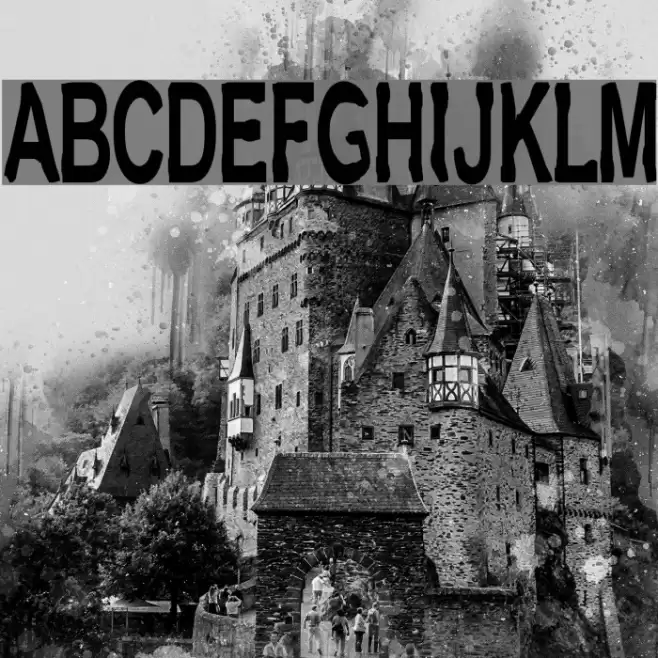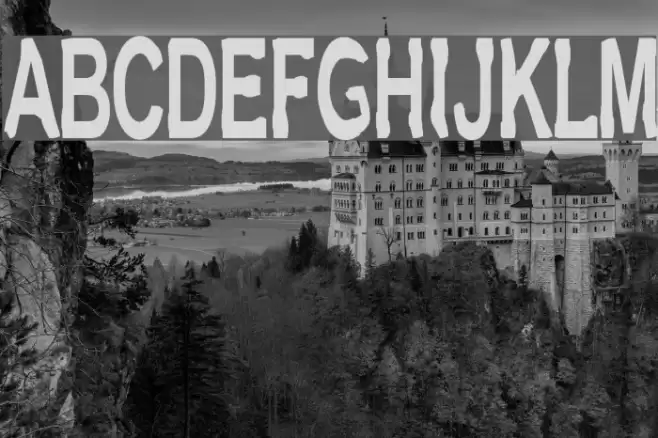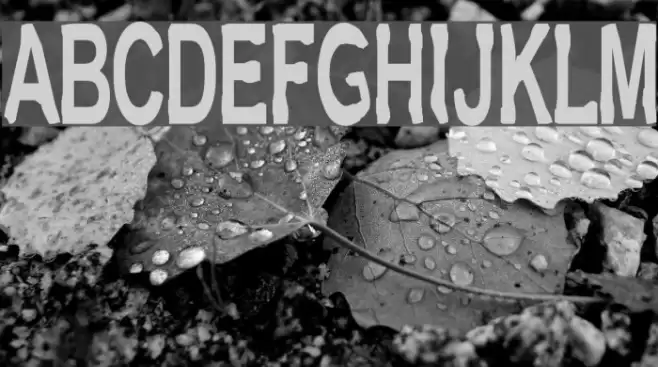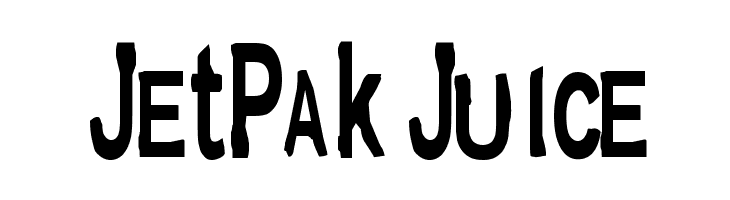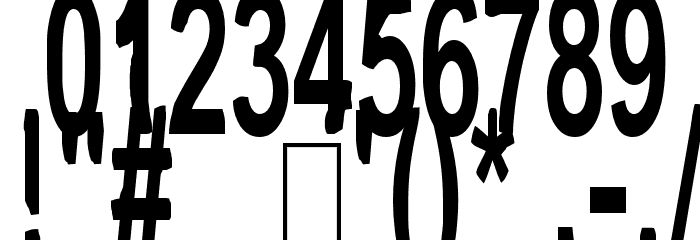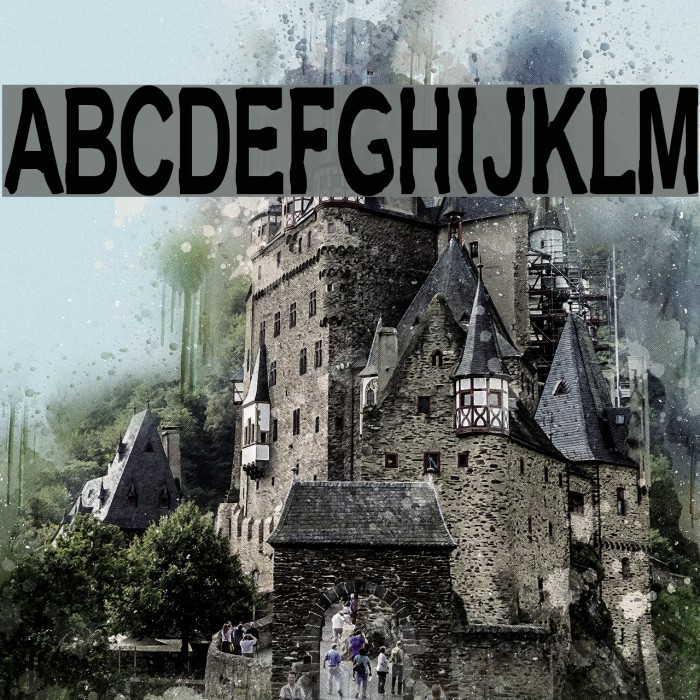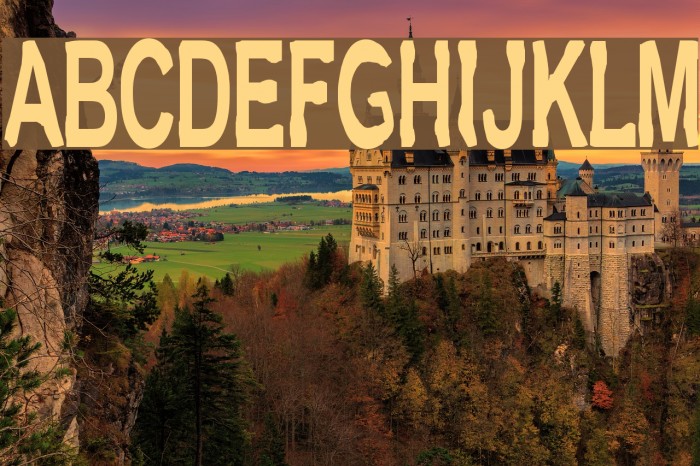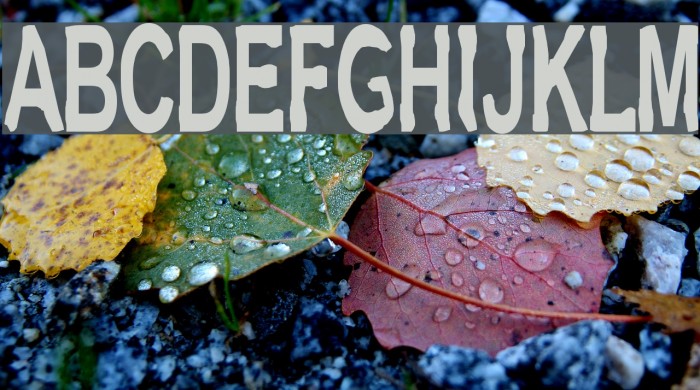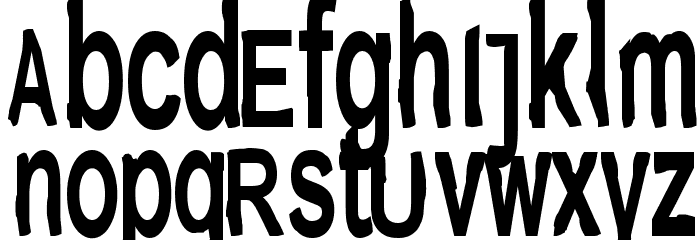
JetPak Juice Font
JetPak Juice Description
This font features a bold and dynamic style with a strong presence. The characters are slightly condensed, giving it a compact and powerful look. The uppercase letters are tall and commanding, while the lowercase letters maintain a consistent height, providing a balanced appearance. The numbers are clear and legible, with a uniform thickness that matches the letters. Special characters are distinct and easily recognizable, adding versatility to the font. The overall design is modern and impactful, making it suitable for attention-grabbing headlines and logos.
A bold, condensed font with a modern and impactful style from Capitals fonts.